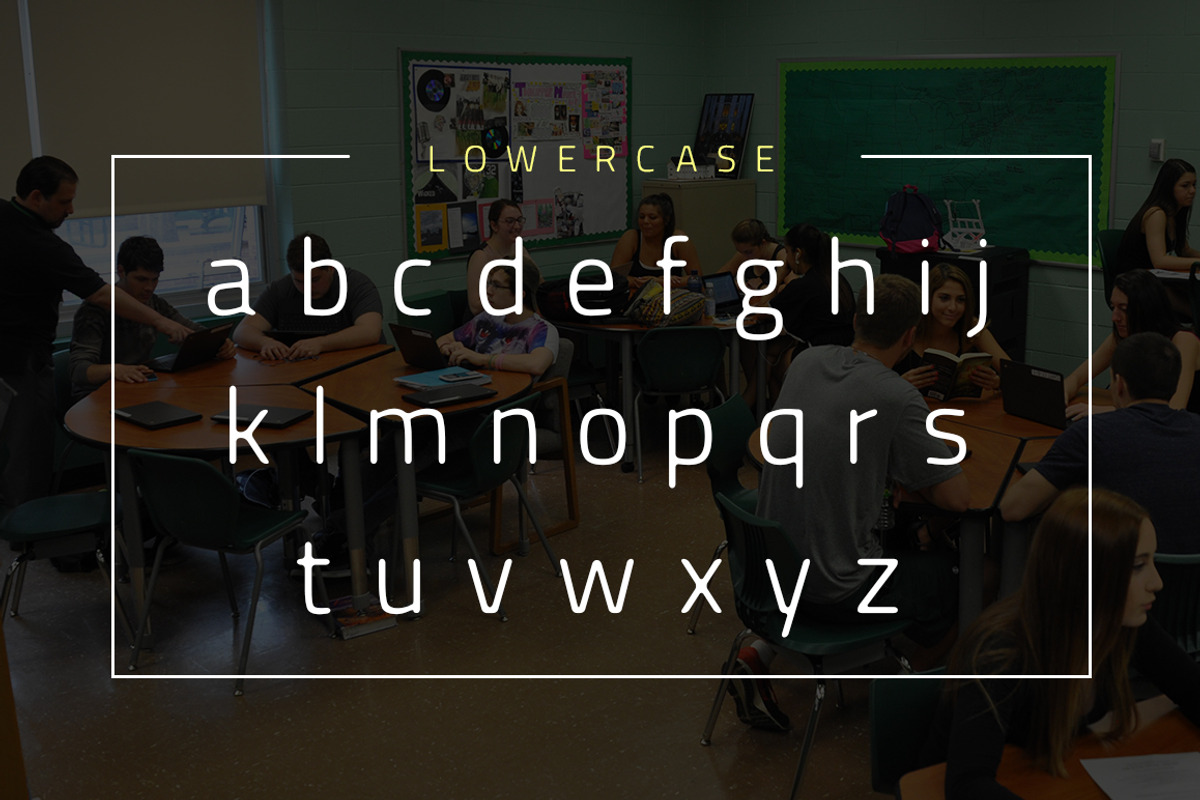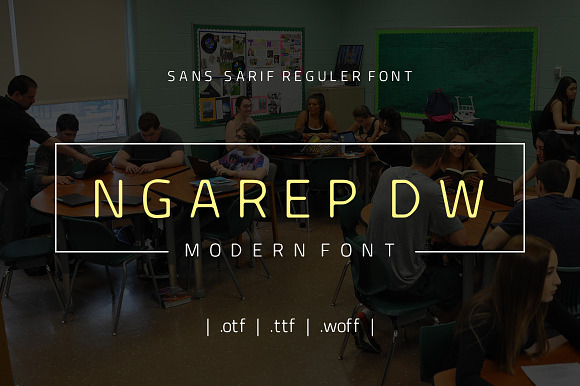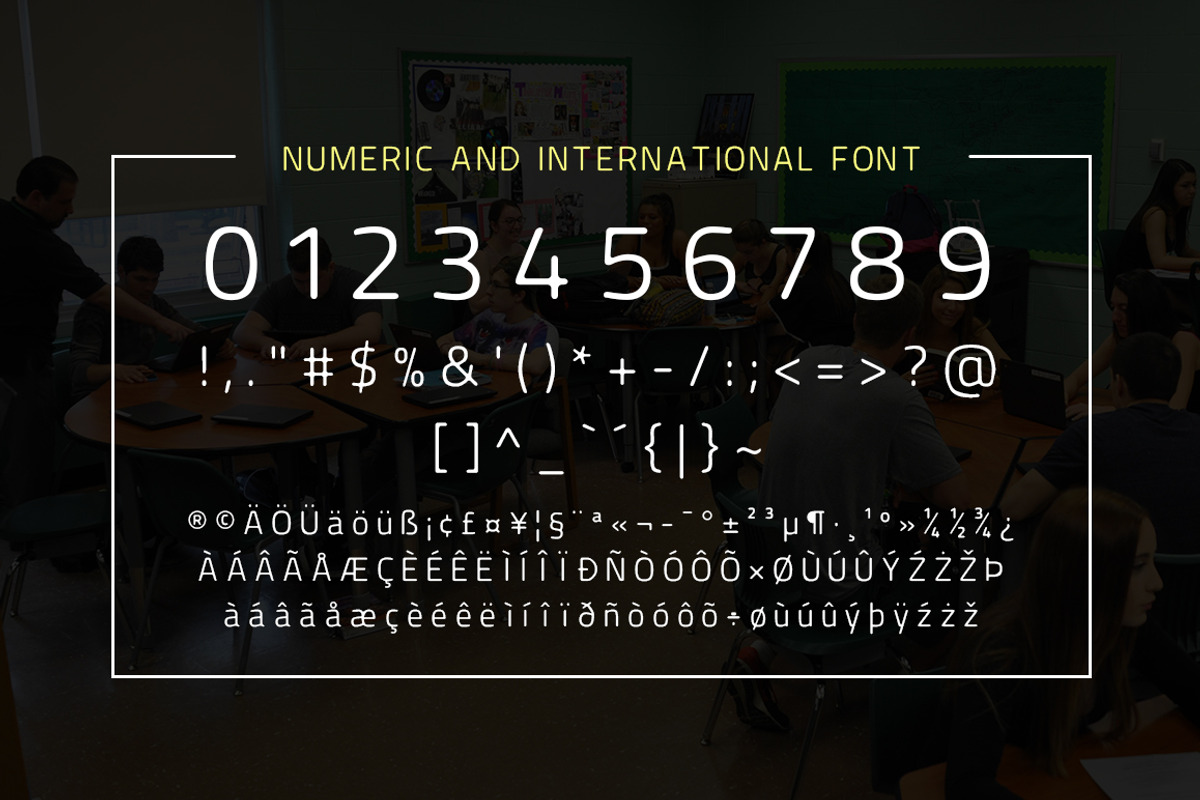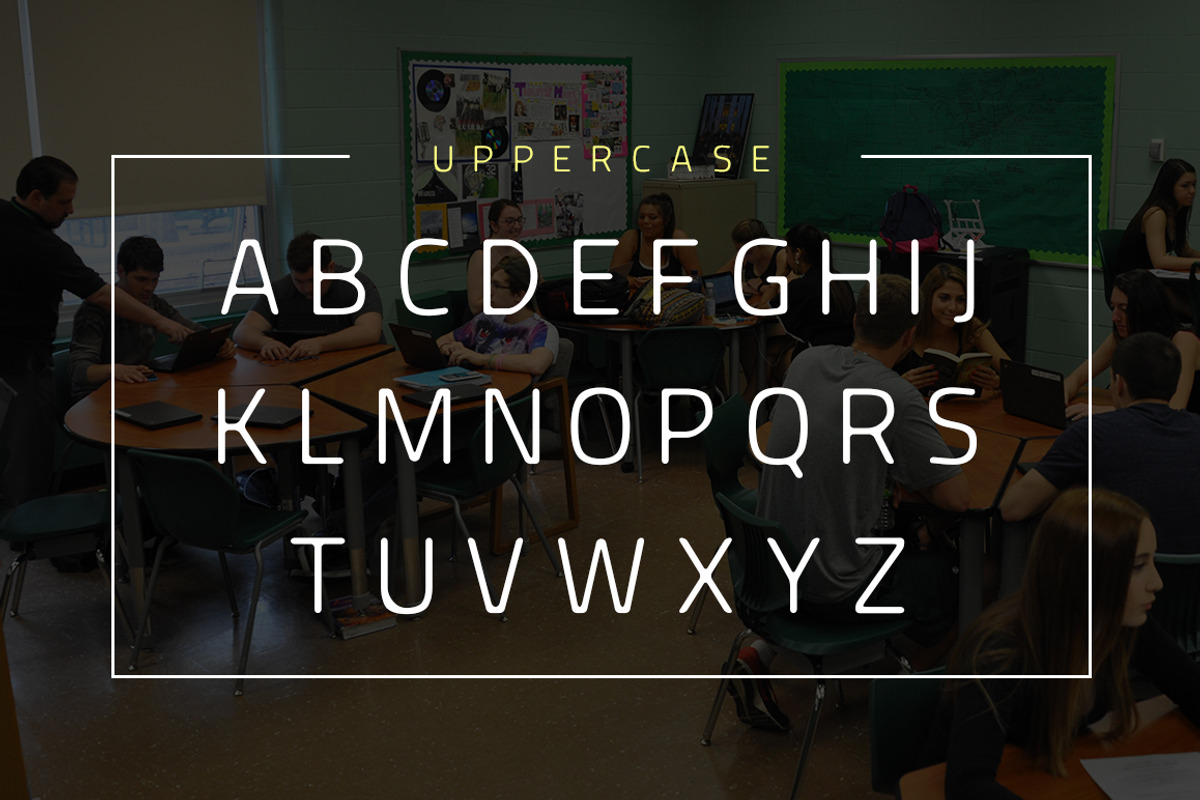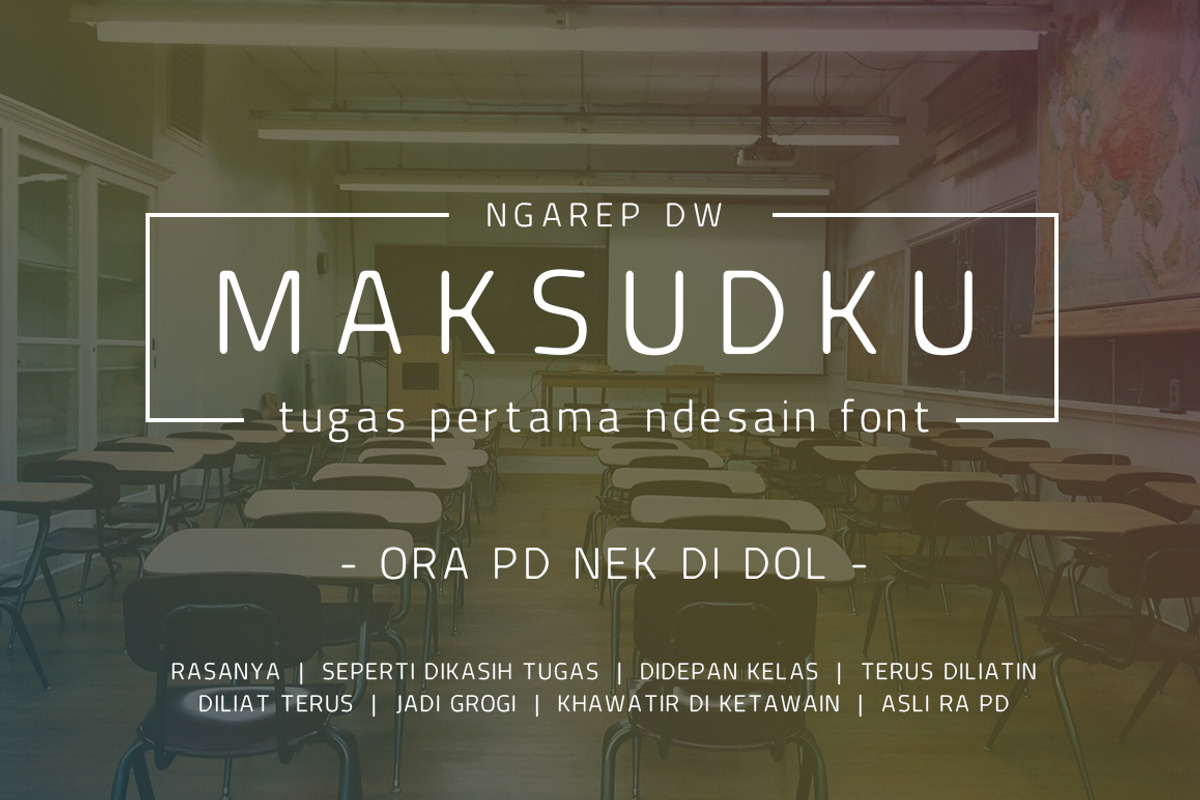
Ngarep DW Font
Ngarep DW Is a smoothly inspired style font. The uniqueness and standalone potential of each letter makes Ngarep DW a great candidate for logos and even monograms. Grab the font today and make sure to stay updated on the shop for new and exclusive fonts.
Ngarep DW Font by yantodesign fits naturally into Branding, posters, packaging, typography.